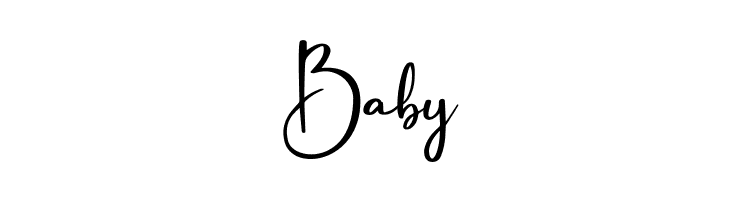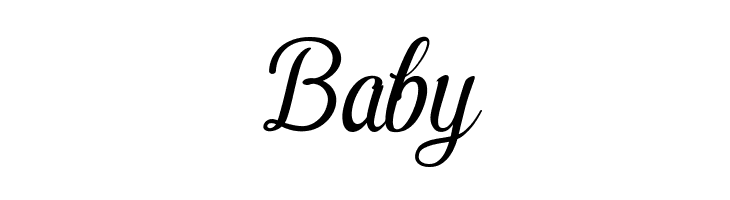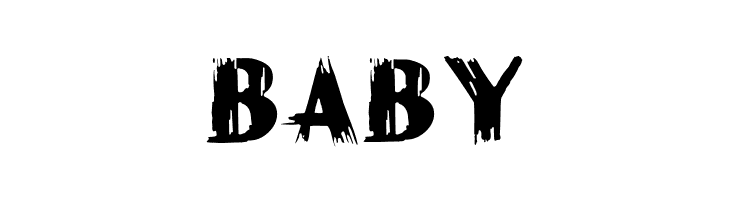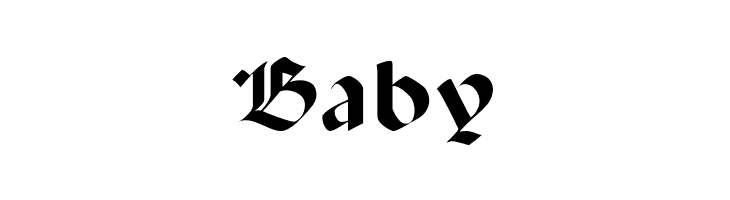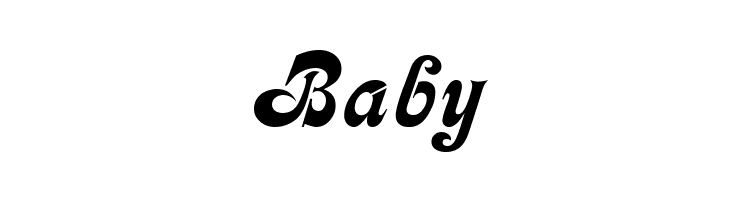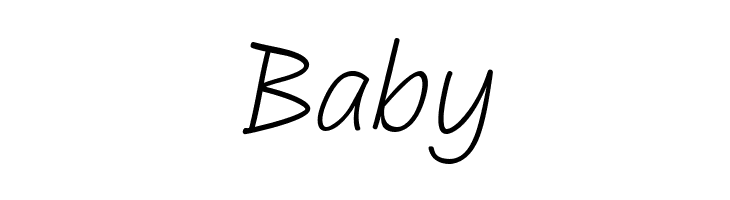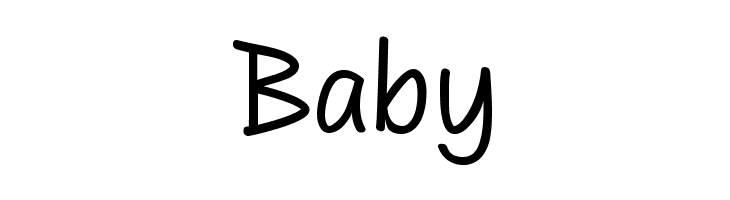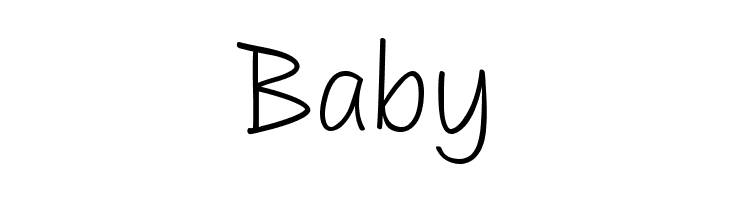
• PadukaScriptfreeversion
A flowing, elegant script font with high contrast and intricate flourishes.
• Paganini
• Page Rules Promo
• Paghetti
• Pahat Script
A bold, textured script font with a hand-painted appearance.
• Paint Normal
• Paint Peel Initials
A bold, distressed font with a peeling paint effect, perfect for gritty designs.
• Paladise Script
A bold, playful script font with smooth curves and exaggerated serifs.
• Pale Blue Eyes
A bold, textured script font with a hand-painted, dynamic style.
• Paleos Demo
A rugged, distressed font with a hand-drawn, primitive style.
• Palina Script
A bold, flowing script font with connected characters and a playful elegance.
• Palmyra Demo
• Pamega Script
An elegant and flowing script typeface with interconnected letters and ornate flourishes.
• Pamega Script
A flowing, elegant script font with decorative swashes and smooth curves.
• Pantagruel!"
• Panton Rust Script SemiBold Grunge
A semi-bold script font with a grunge texture and dynamic flow.
• Panton Rust Script SemiBold Grunge
A bold, grunge-textured script font with a rustic and vintage appeal.
• PaperScraps
A playful, brush-style font with bold, hand-drawn strokes and dynamic character.
• Paradise Script
An elegant script font with intricate, flowing lines and high contrast, ideal for sophisticated designs.
• Paradox Italic
• Paramount Mountain v1